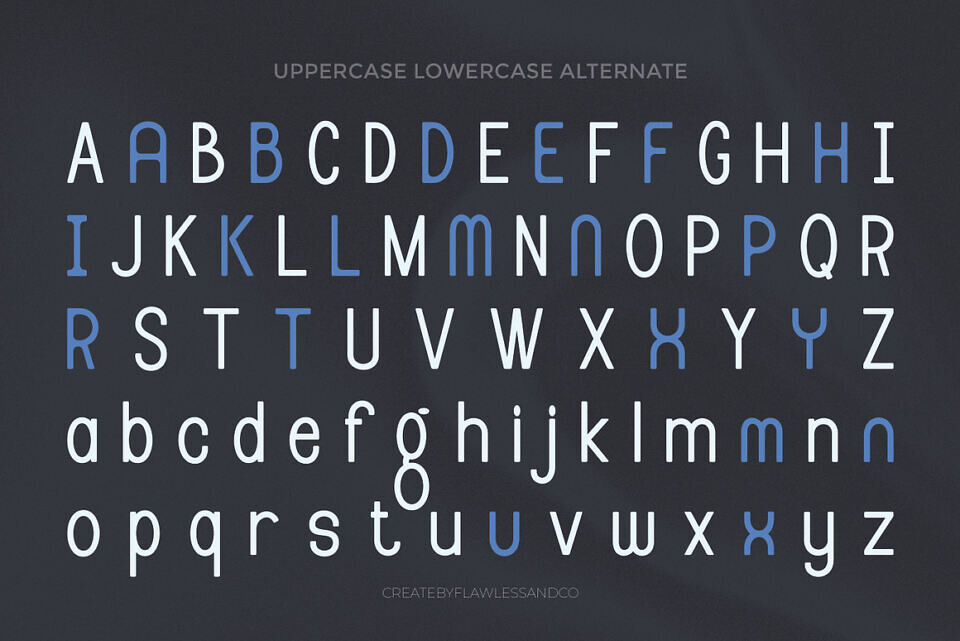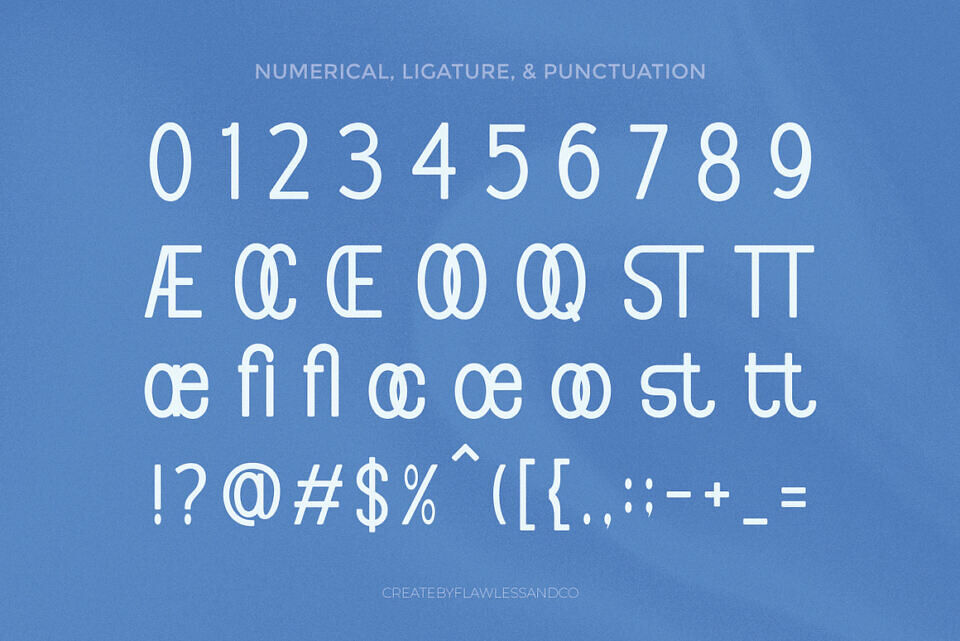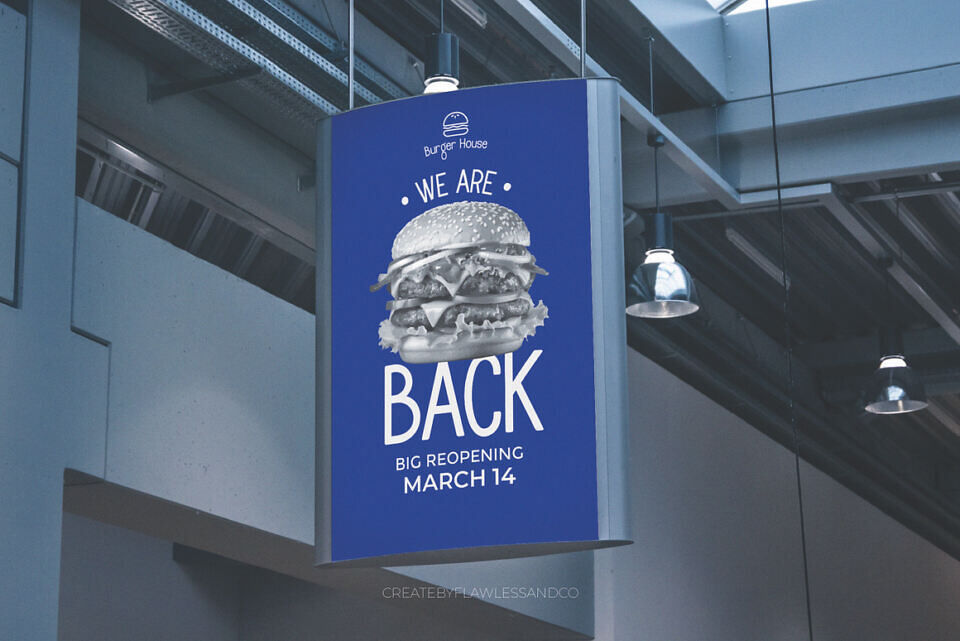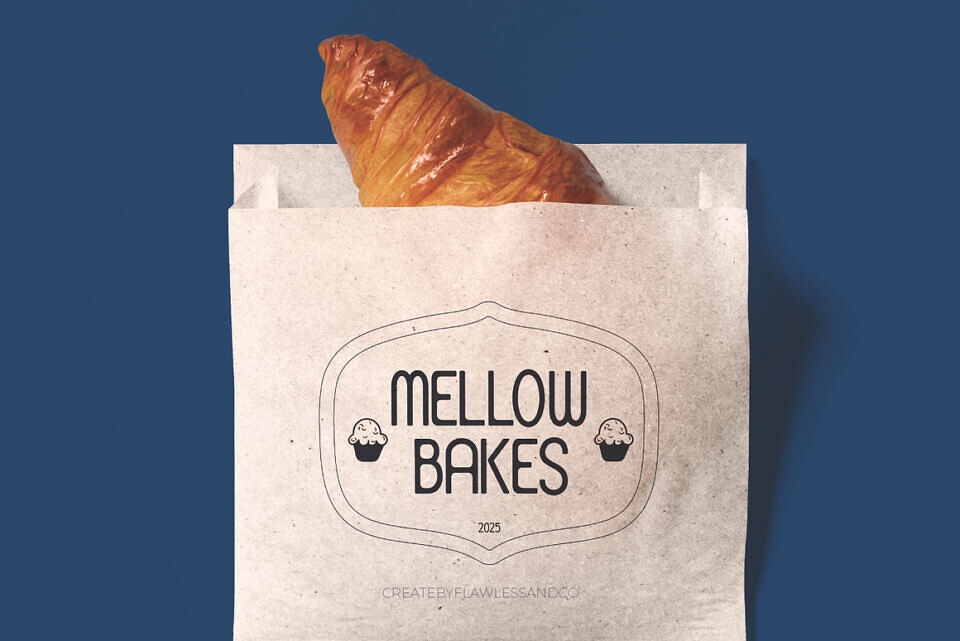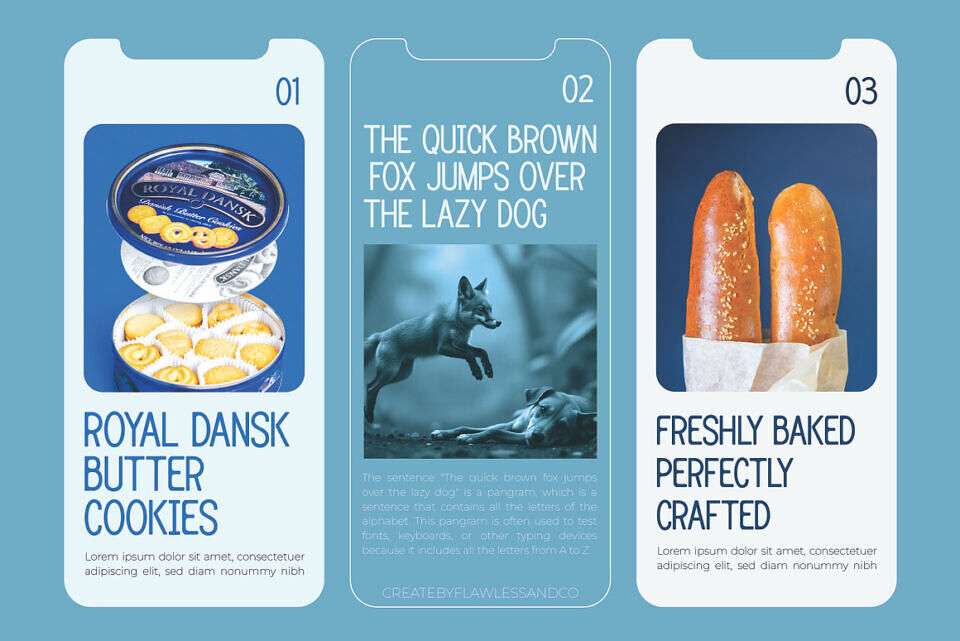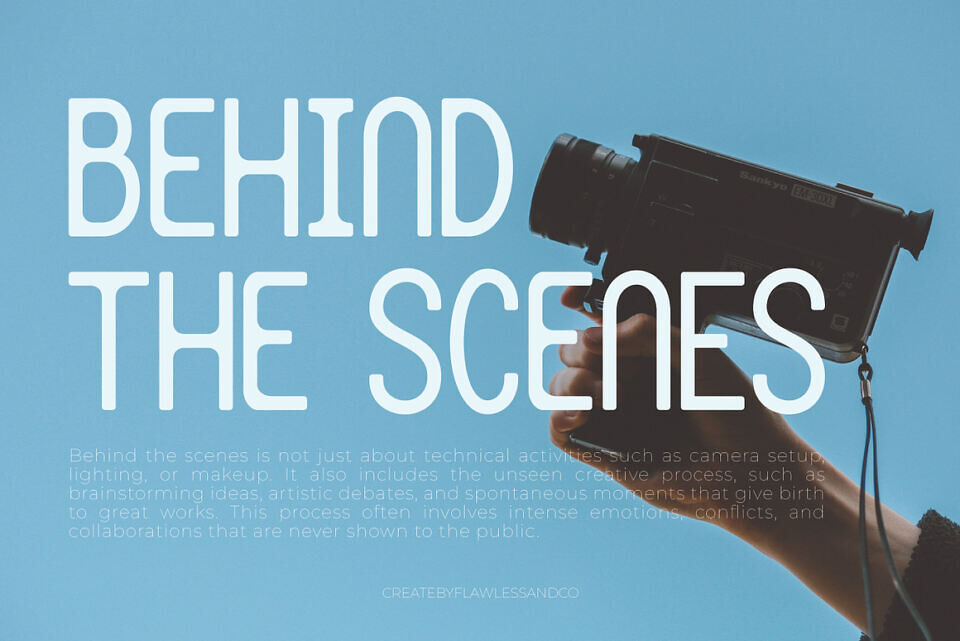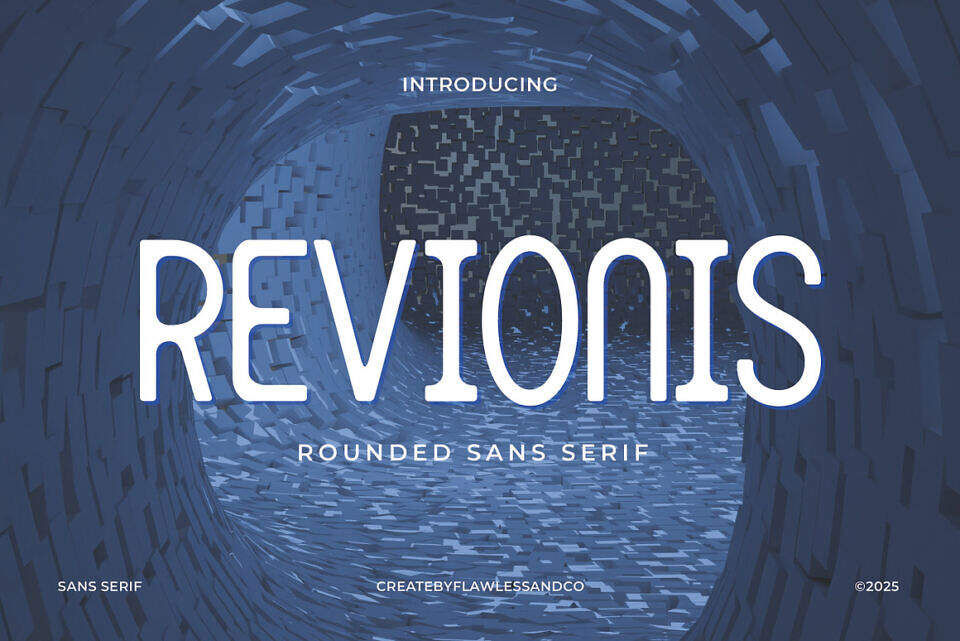
Revionis Font
Revionis is a clean and modern sans serif font designed to bring simplicity and sophistication to your projects. With its sleek letterforms and balanced proportions, this font is perfect for branding, logos, website headers, editorial layouts, and social media graphics. Its minimalistic style makes it versatile and easy to pair with other typefaces, making it a great choice for both professional and creative designs.
There’s some connected letters and some alternates that suitable for any graphic designs such as branding materials, print, business cards, logo, poster, t-shirt, photography, quotes, etc.
This font support for some multilingual. Also contains uppercase A-Z and lowercase a-z, alternate character, numbers 0-9, alternates & ligatures, and some punctuation.